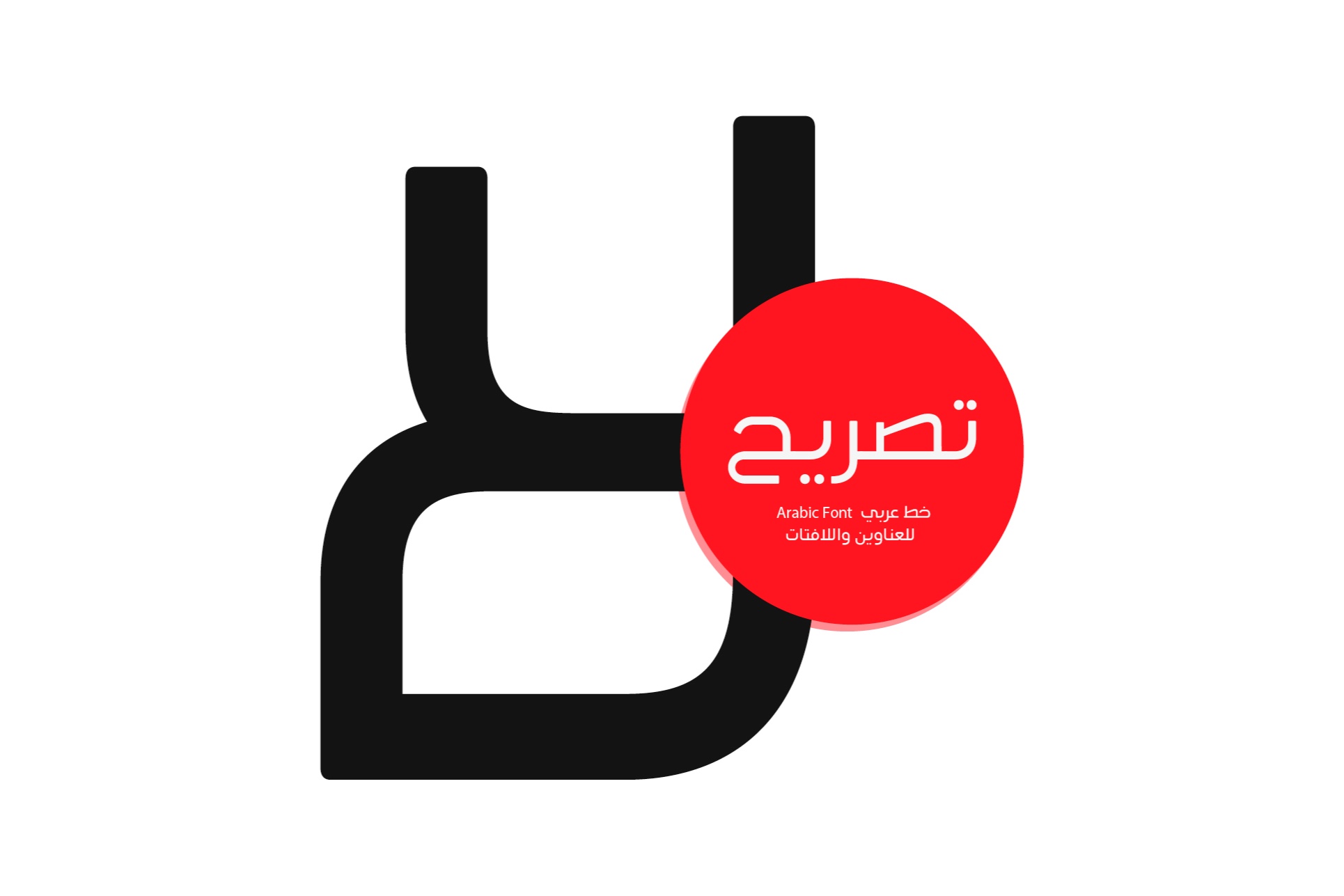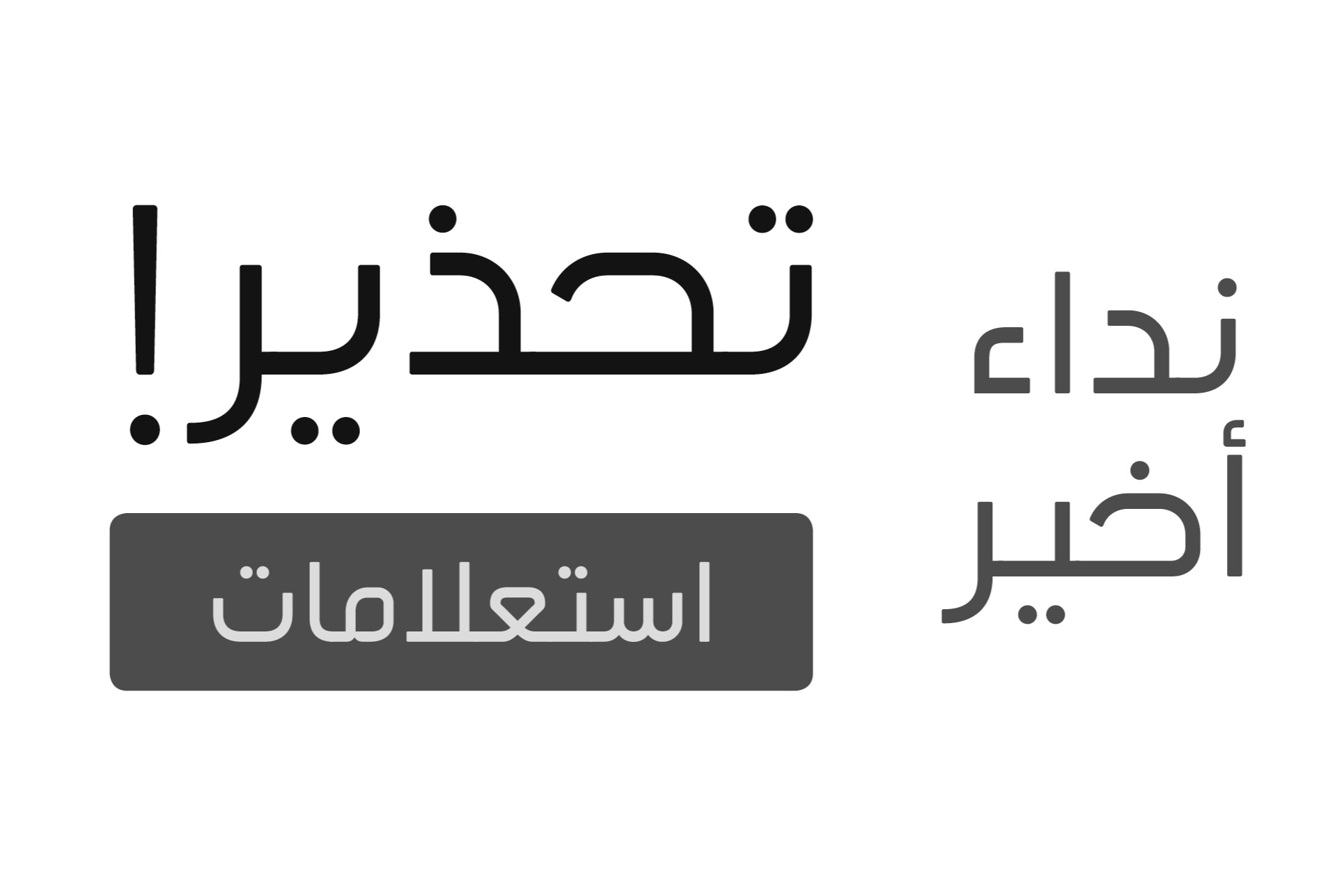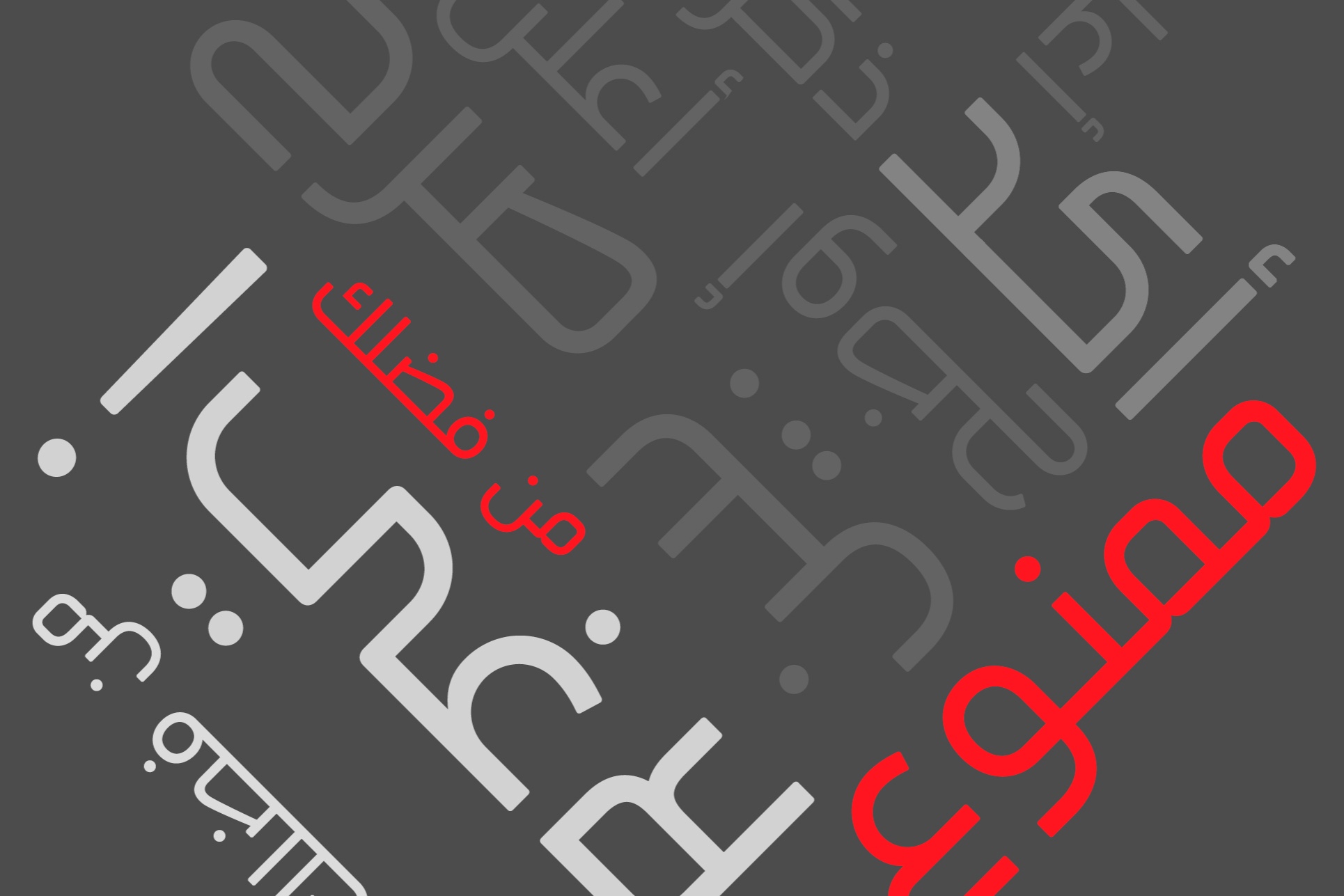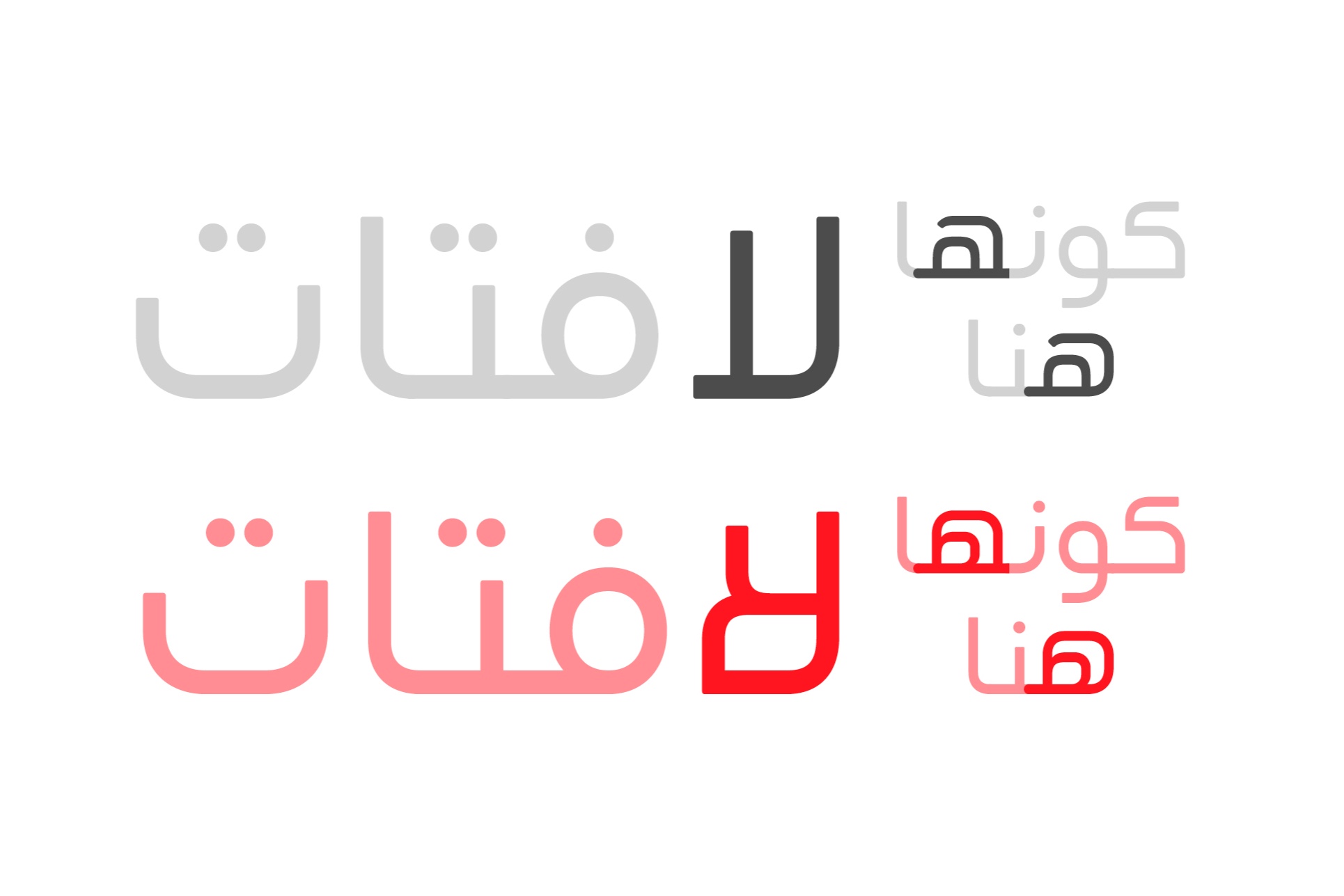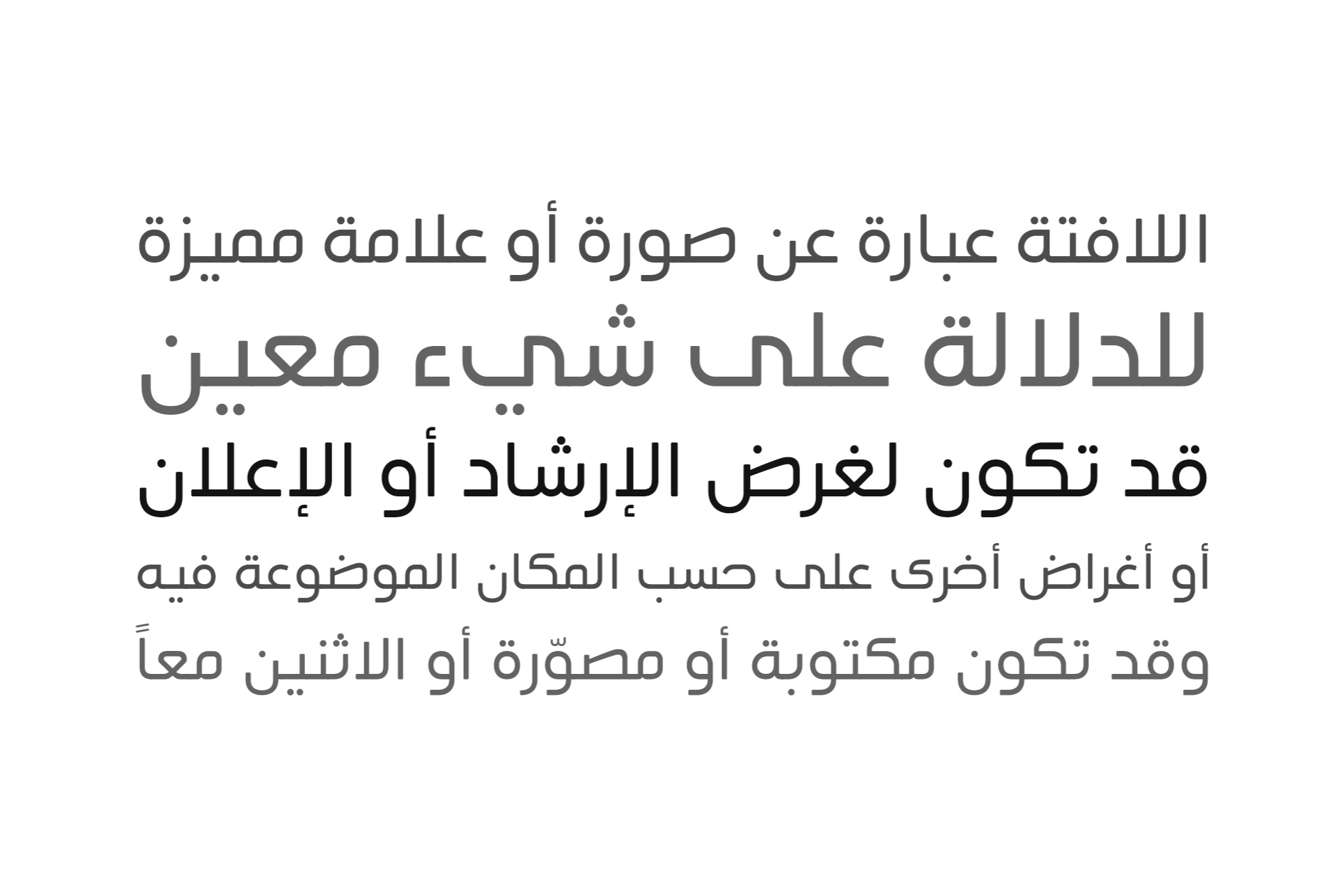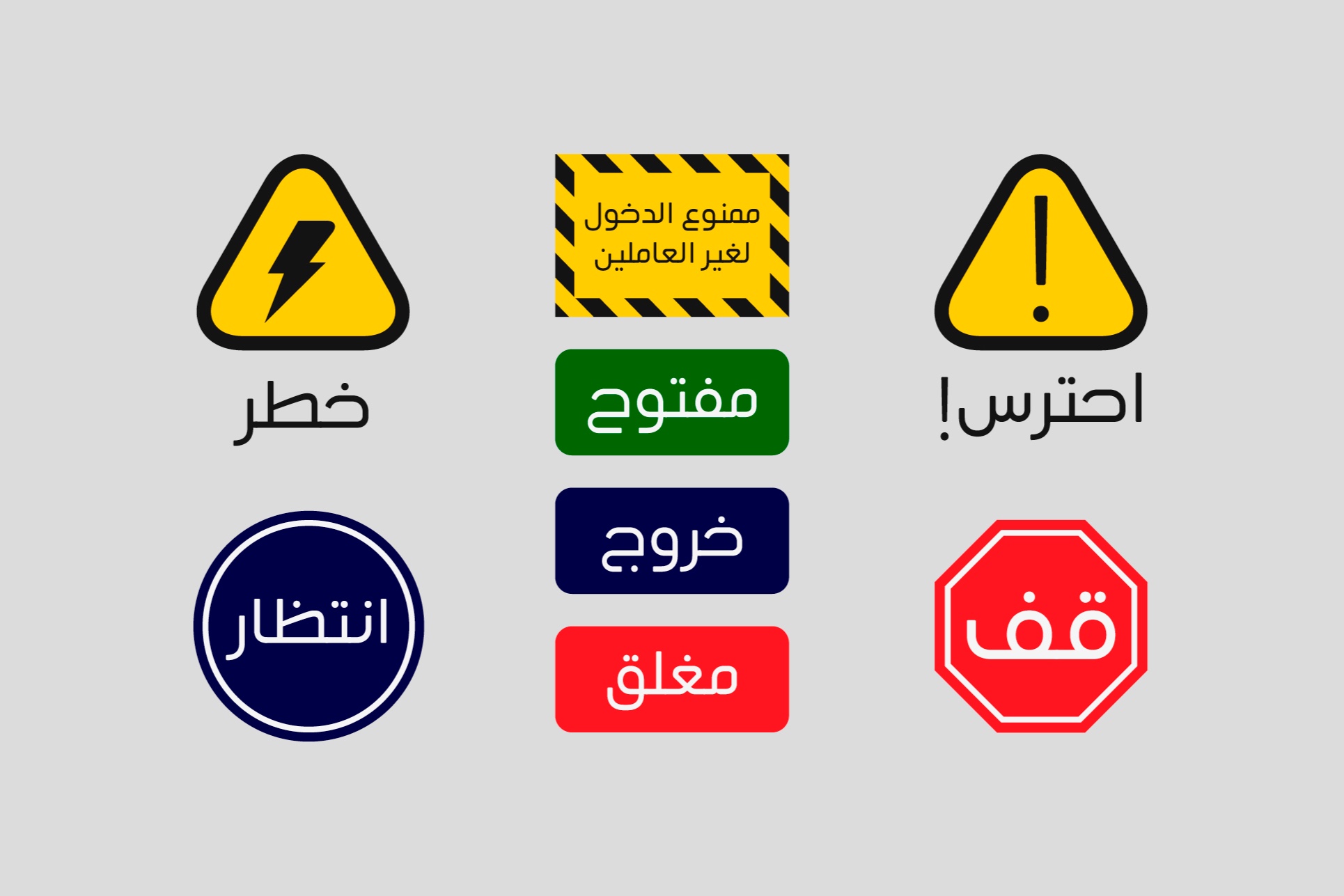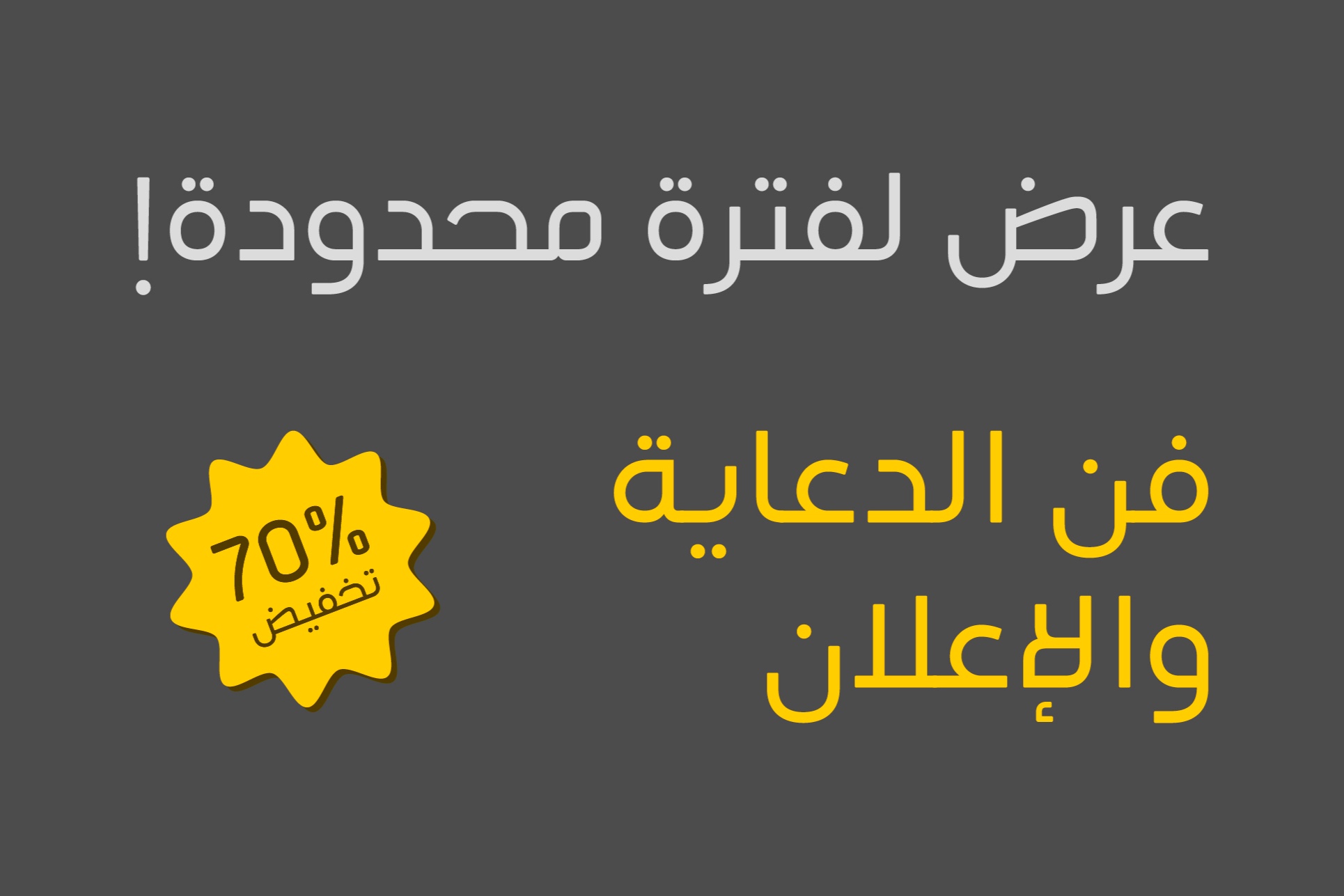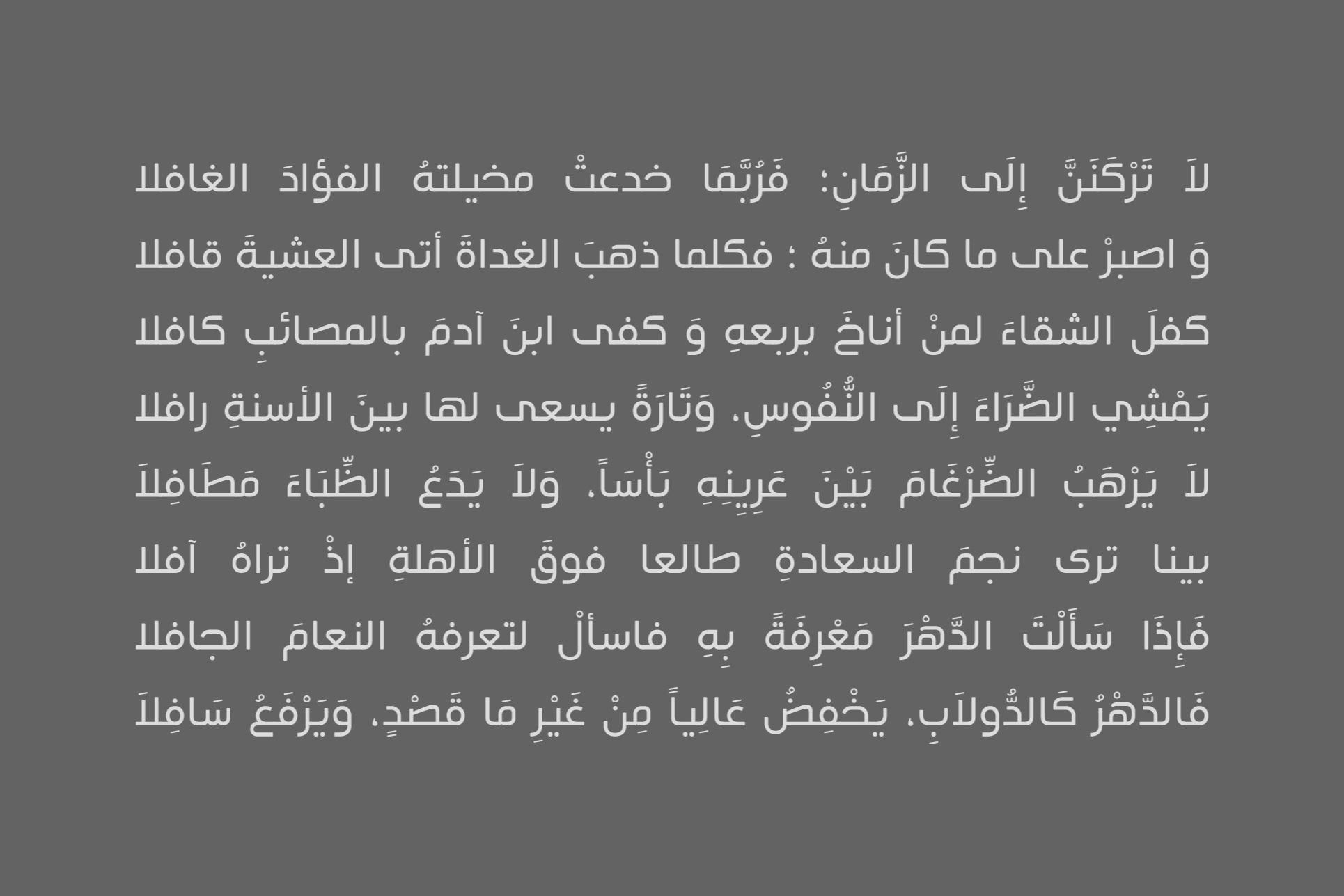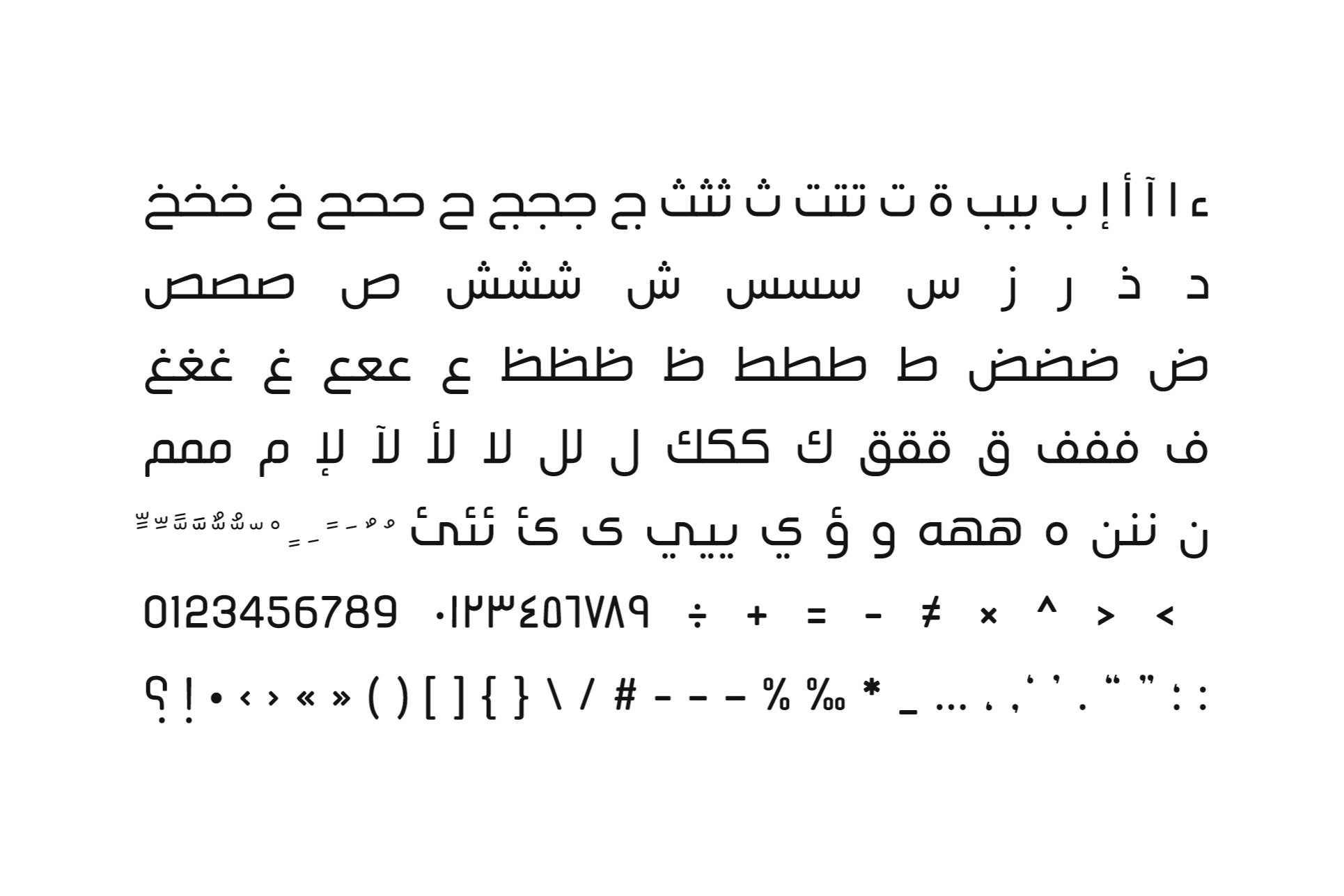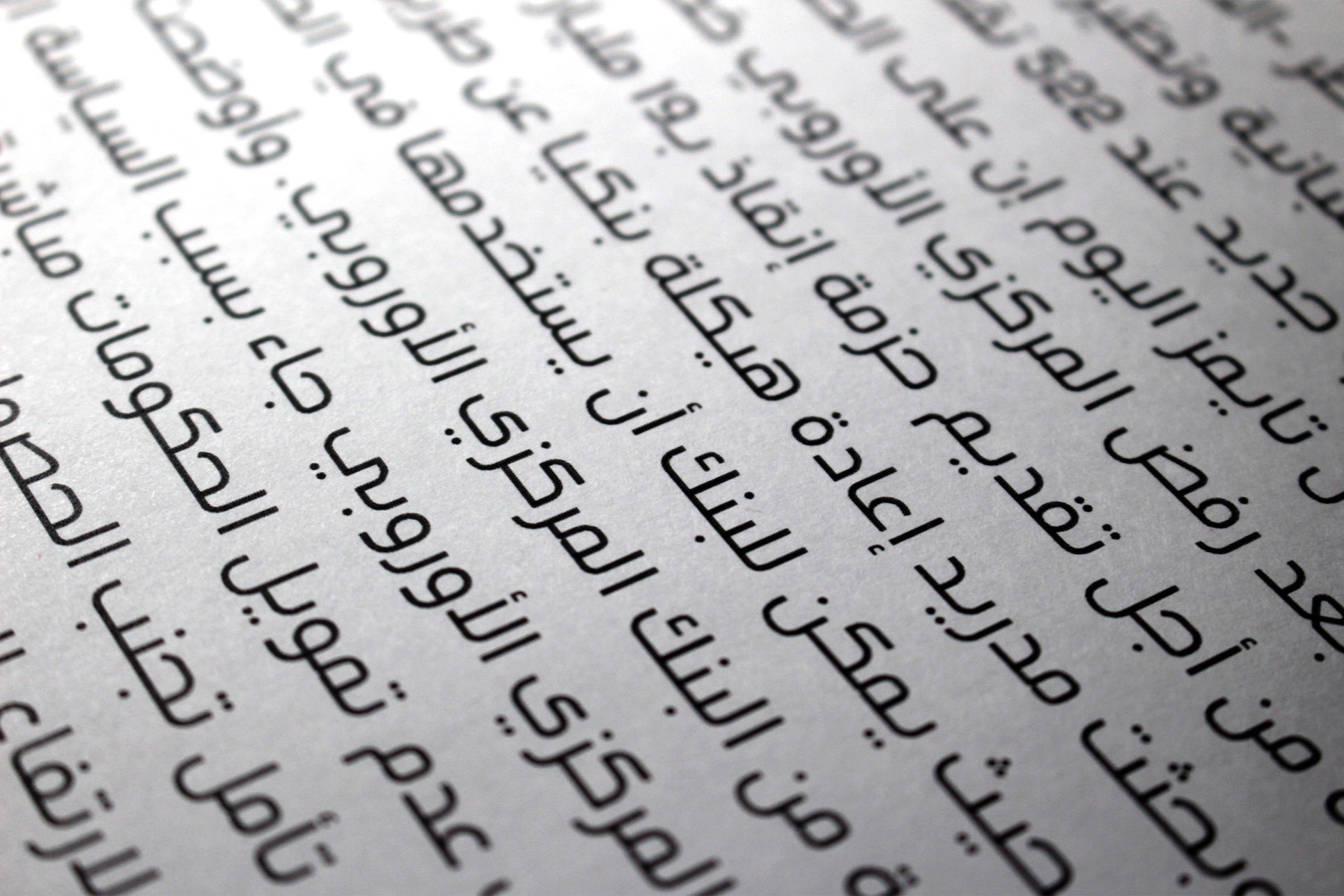
The Arabic term "Tasreeh" encompasses various meanings, including statement, permit, and announcement. Tasreeh is also a distinctive Arabic font that imparts a unique visual impact to text, thanks to its dynamic letterform design. This font is particularly well-suited for applications such as titling, signage, instructional materials, and news headlines, as well as for publications and other commercial design projects.